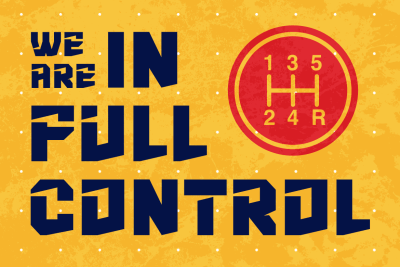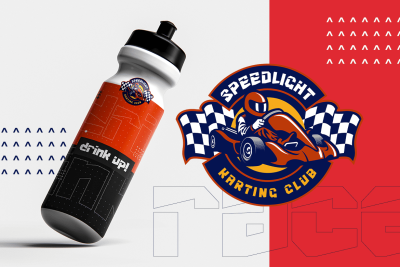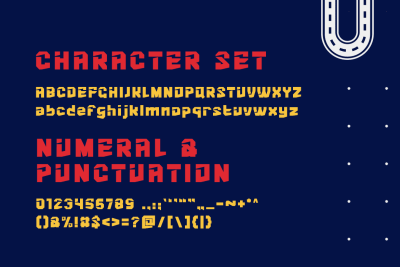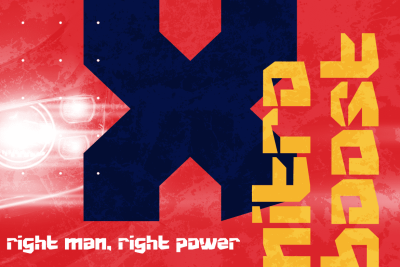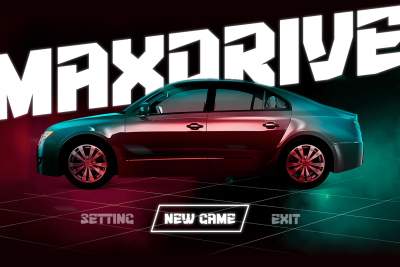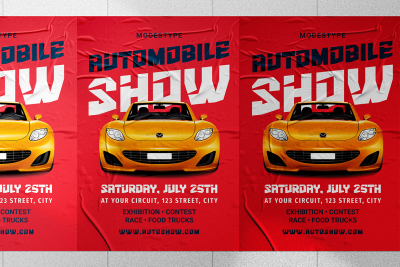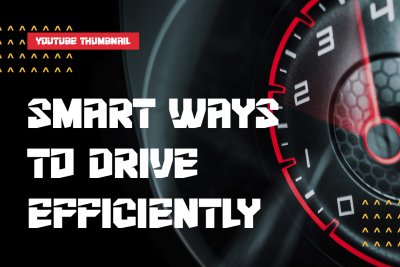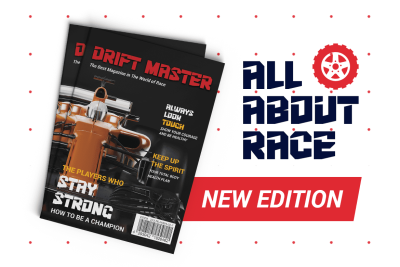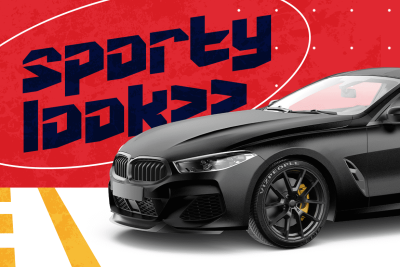
Racing Font Drift Master is a bold, high-impact typeface inspired by the adrenaline of drift racing and high-speed competition. Designed with sharp angles and dynamic strokes, this font exudes power, motion, and precision. Moreover, its aggressive letterforms mimic the energy of a car drifting through tight corners, making it ideal for projects needing speed and excitement.
With its slanted, edgy design, Drift Master blends futuristic and motorsports aesthetics, creating a look that stands out. Additionally, its strong, blocky letters ensure readability while maintaining a modern appeal. Whether applied to logos, event promotions, or digital media, this typeface guarantees instant visual impact.
Furthermore, Drift Master is highly versatile. It retains its bold presence on both digital screens and print materials. As a result, it works well for racing tournaments, gaming visuals, or automotive branding. This font delivers a sleek, aggressive style that commands attention.
Racing Font Drift Master Who is it for?
Racing Font Drift Master is perfect for designers, brands, and creators looking to inject speed, energy, and power into their visuals. More specifically, it suits:
- Motorsports and Automotive Brands: Ideal for racing teams, car manufacturers, and tuning shops. This font enhances logos, vehicle graphics, and performance branding with a bold look. Consequently, it strengthens brand identity and appeals to speed enthusiasts.
- Gaming and eSports: A great fit for action-packed games and competitive eSports branding. Furthermore, it adds a futuristic appeal to gaming titles, team logos, and promotional materials.
- Extreme Sports and Streetwear Brands: Works well for skateboarding, BMX, and action sports brands seeking a rebellious, high-adrenaline feel in their branding and merchandise. Additionally, its bold design ensures maximum impact.
- Event Promotions and Posters: Great for automotive exhibitions, drift competitions, and motorsport events. Therefore, its striking design ensures visibility and audience engagement.
- Tech and Futuristic Branding: Startups in AI, robotics, and innovation-driven industries can use Drift Masterโs sleek design to establish a cutting-edge identity. As a result, their branding stands out in competitive markets.
- YouTubers and Content Creators: Automotive vloggers, racing enthusiasts, and gaming influencers can use this font for thumbnails, banners, and branding materials. Ultimately, it helps create a bold, energetic visual identity.
Racing Font Drift Master is the perfect choice for those who want to capture the thrill of racing, speed, and action. Most importantly, whether branding a motorsport event, launching a gaming franchise, or creating extreme sports visuals, this font delivers high-energy aesthetics that make a bold statement.